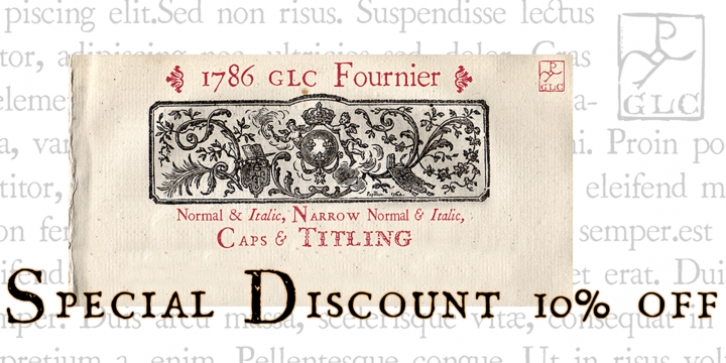
1786 GLC Fournier was published by GLC. 1786 GLC Fournier contains 6 styles and family package options.
This family was inspired by numerous documents and books printed in Paris during the end of the 1700s. Mainly, documents printed by P.G. Simon & N.H. Nyon, "Printers of the parliament" were used for the Normal and italic styles and "Caps". "Titling" characters were coming from a collection of hymns printed by Nicolas Chapart. In France these Fournier characters, as Baskerville in Great Britain, were the most often in use in the late 1700s, just before the Didot designs.
This font supports strong enlargements, specially the capitals of "Caps" file and "Titling", remaining very smart, elegant and fine.
· 1786 GLC Fournier Normal
· 1786 GLC Fournier Italic
· 1786 GLC Fournier Narrow Normal
· 1786 GLC Fournier Narrow Italic
· 1786 GLC Fournier Caps Normal
· 1786 GLC Fournier Titling Normal